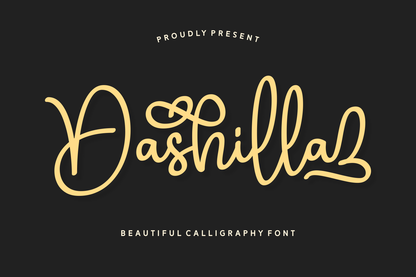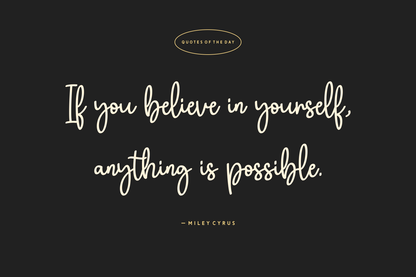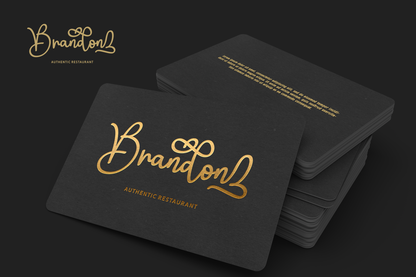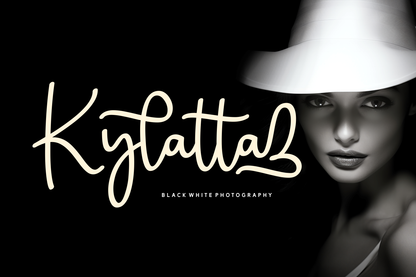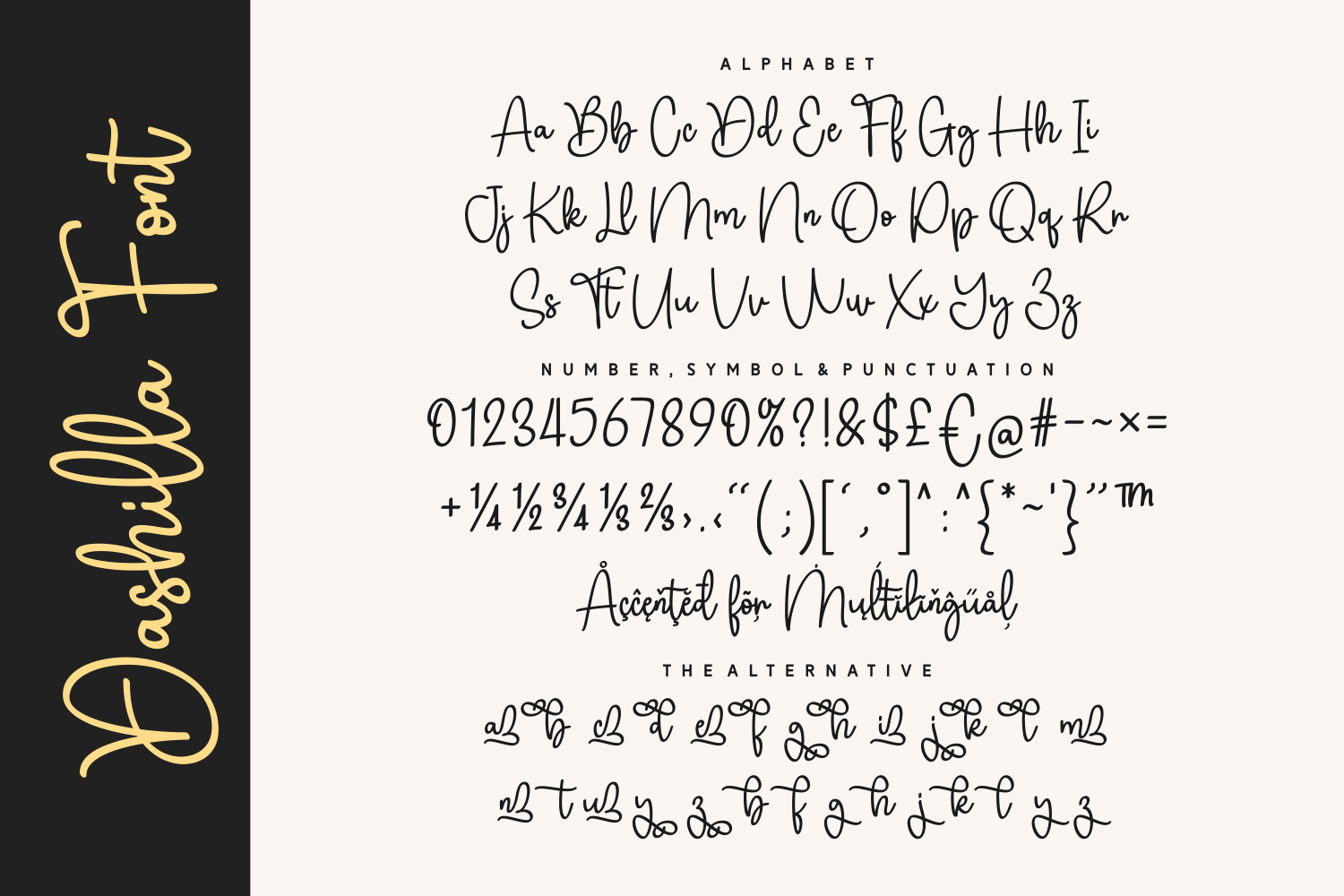
Dashilla is a graceful and stylish calligraphy font with a handcrafted charm and a modern twist. With elegant swashes and flowing strokes, it exudes sophistication while maintaining a playful, heartwarming vibe. Ideal for wedding stationery, branding, greeting cards, and lifestyle design.